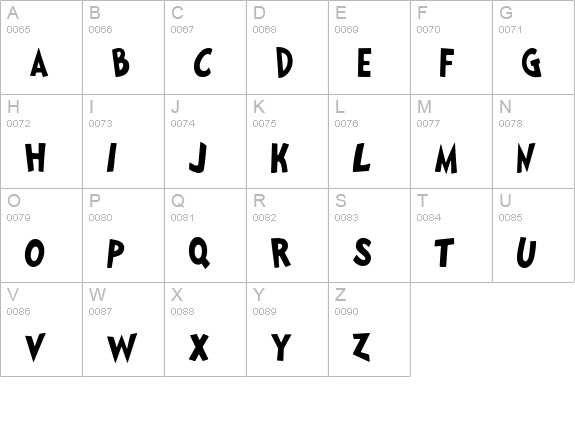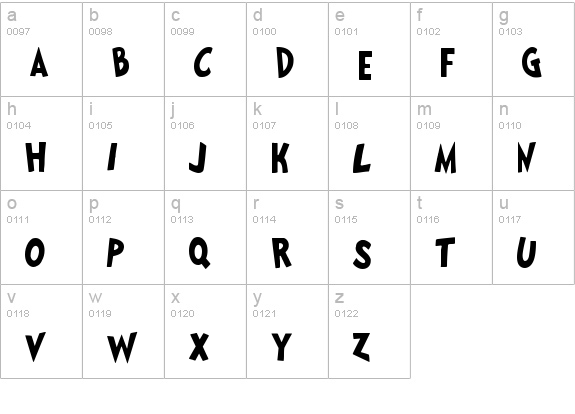
Seuss Font Details
Introducing Seuss Font, a whimsical and playful typeface that brings the delightful world of Dr. Seuss to life. With its charming and eccentric letterforms, Seuss Font captures the essence of Dr. Seuss's iconic illustrations and storytelling. This font is perfect for any project that requires a touch of imagination and childlike wonder. Whether you're designing a children's book cover, creating birthday invitations, or crafting a playful logo, Seuss Font will add that extra dash of whimsy and charm. But what makes Seuss Font even more special is that it is freely available to download at FontsMarket.com. Yes, you read that right! You can now bring the magic of Dr. Seuss into your designs without any cost. This means that you can explore endless creative possibilities and bring your ideas to life without any limitations. Seuss Font is not only visually captivating but also highly versatile. It offers a wide range of characters, including uppercase and lowercase letters, numbers, punctuation marks, and special symbols, allowing you to create captivating compositions and designs. With its smooth curves and playful details, Seuss Font will transport your audience to a world filled with imagination, laughter, and endless possibilities. So go ahead and download Seuss Font from FontsMarket.com, and let your creativity run wild!